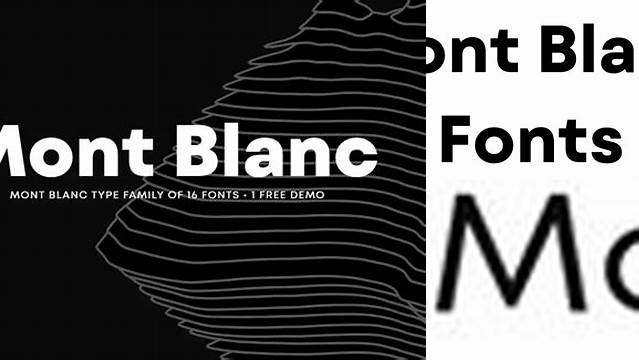
Hey guys! Are you looking to add a touch of elegance and sophistication to your designs? Then you've probably heard of the Mont Blanc font family. It's a super popular choice for everything from logos and branding to website headers and print materials. But finding a reliable and free download source can sometimes feel like searching for a needle in a haystack. Don't worry, we've got you covered! This guide will walk you through everything you need to know about the Mont Blanc font, where to find it, and how to use it effectively. So, let's dive in and get your creative juices flowing!
Mont Blanc Font Family: An Overview
Before we jump into the download details, let's take a moment to appreciate what makes the Mont Blanc font family so special. This font family exudes modern elegance and refined simplicity. Its clean lines and balanced proportions make it incredibly versatile for a wide range of design applications. Whether you're working on a minimalist logo or a bold headline, Mont Blanc can deliver the perfect visual impact. The Mont Blanc font is really impactful for professional and personal work.
The Mont Blanc font family typically includes several weights and styles, such as regular, bold, italic, and light, providing designers with a comprehensive toolkit for typographic expression. This versatility ensures that you can maintain a consistent visual identity across all your projects. Think of it as the Swiss Army knife of fonts β always reliable and ready for any task! This section will delve into the history, characteristics, and ideal uses of the Mont Blanc font, helping you understand why itβs a favorite among designers worldwide.
We'll explore the various weights and styles available within the Mont Blanc family and discuss how each can be used to achieve different design goals. By the end of this section, you'll have a solid understanding of the Mont Blanc font's capabilities and be ready to incorporate it into your own projects. The key benefit of Mont Blanc font is its versatility which can be applied in different design needs.
What is the Mont Blanc Font? Understanding the Basics
So, what exactly is the Mont Blanc font? At its core, it's a geometric sans-serif font known for its clean, minimalist design. This means it lacks the small decorative strokes (serifs) that you see in fonts like Times New Roman. The absence of serifs gives Mont Blanc a modern, uncluttered look that's perfect for contemporary designs. But it's not just about being minimalist; Mont Blanc also boasts a certain sophistication that sets it apart from other sans-serif fonts. Its carefully crafted letterforms and balanced proportions make it a joy to read and a pleasure to look at. The Mont Blanc font is characterized by its clean lines and minimalist design, making it a favorite for modern aesthetics.
Think of it this way: if fonts were cars, Mont Blanc would be a sleek, high-end sedan β stylish, reliable, and effortlessly cool. This section will dive deeper into the technical aspects of the font, such as its x-height, kerning, and overall structure. We'll also compare it to other popular sans-serif fonts to highlight its unique characteristics. By the end of this section, you'll have a thorough understanding of the Mont Blanc font's anatomy and its place in the world of typography. Knowing these basics is crucial for effectively using the font in your designs.
Mont Blanc Font Characteristics: Key Features and Style
The real magic of the Mont Blanc font lies in its characteristics. Itβs not just about being sans-serif; it's about the way it's designed. The font features a geometric construction, meaning that its letterforms are based on simple geometric shapes like circles and squares. This gives it a sense of order and precision, which contributes to its clean and modern aesthetic. But it's not all about geometry; Mont Blanc also has subtle curves and refinements that add a touch of elegance and warmth. This balance between structure and softness is what makes it so versatile. It is this balance that makes Mont Blanc font so unique in its style.
Another key feature of Mont Blanc is its excellent readability. The letterforms are carefully spaced and proportioned, making it easy to read in both large and small sizes. This is crucial for everything from website body text to printed materials. This section will break down the key characteristics of Mont Blanc in detail, exploring its geometric forms, stroke contrast, and overall aesthetic. We'll also discuss how these features contribute to its versatility and readability. By understanding these nuances, you can leverage the Mont Blanc font to its full potential in your designs. This deeper dive will help you appreciate the artistry behind the font's design and use it more effectively. The key features of Mont Blanc contribute to its elegance and readability.
Mont Blanc Font Uses: Best Applications in Design
Okay, so you know what Mont Blanc is and what it looks like. But how can you actually use it in your designs? Well, the possibilities are pretty much endless! Mont Blanc's versatility makes it a great choice for a wide range of applications. It works beautifully for logos and branding, where its clean and sophisticated look can help convey a sense of professionalism and trustworthiness. It's also fantastic for website headers and body text, thanks to its excellent readability. And don't forget print materials like brochures, posters, and business cards β Mont Blanc can add a touch of class to any project. The versatility of Mont Blanc allows for many design applications, from logos to websites.
This section will explore the best applications of the Mont Blanc font in detail, providing real-world examples and inspiration. We'll look at how different companies and designers have used Mont Blanc to create stunning visuals. We'll also offer tips and tricks for using the font effectively in various contexts. Whether you're designing a new logo, revamping your website, or creating a marketing campaign, this section will give you the insights you need to make Mont Blanc a star player in your design arsenal. Real-world examples will help you visualize how to use Mont Blanc effectively.
By now, you should have a solid understanding of the Mont Blanc font family and how it can enhance your design projects. Whether you're creating logos, websites, print materials, or anything else, Mont Blanc can add a touch of sophistication and modernity. So go ahead, download the font, experiment with different weights and styles, and unleash your creativity! We hope this guide has been helpful and inspiring. Happy designing! We wish you the best with your future designs using Mont Blanc!